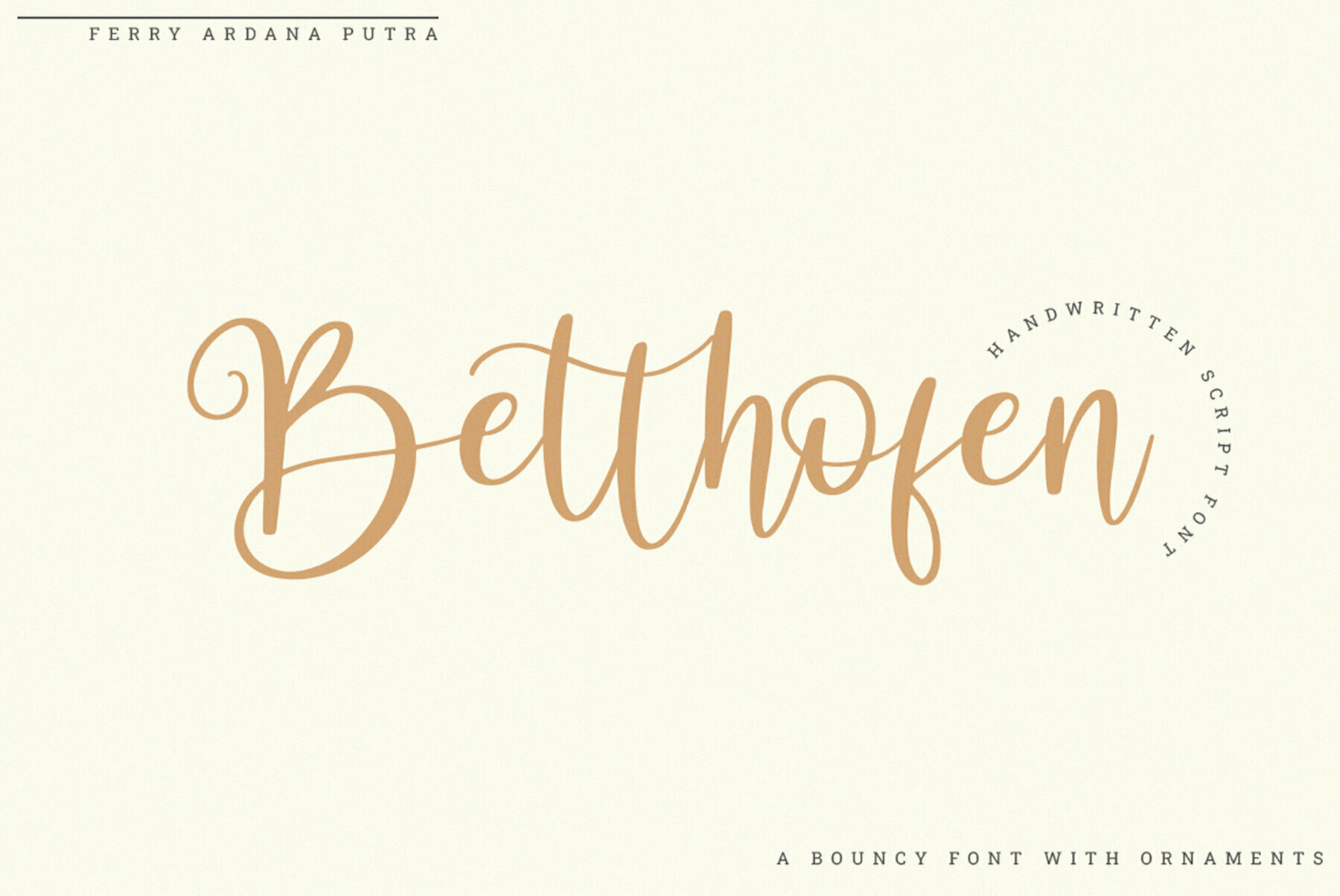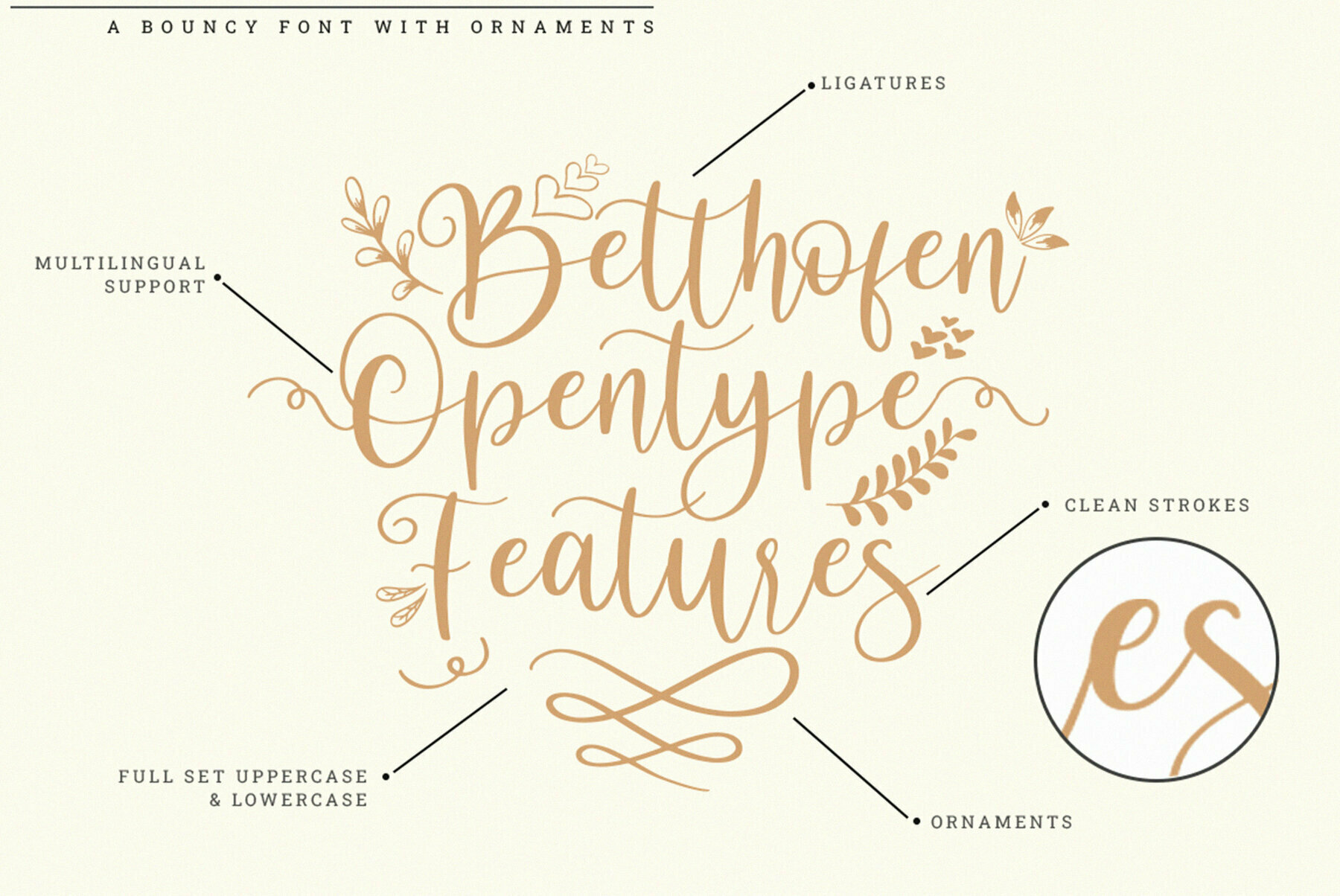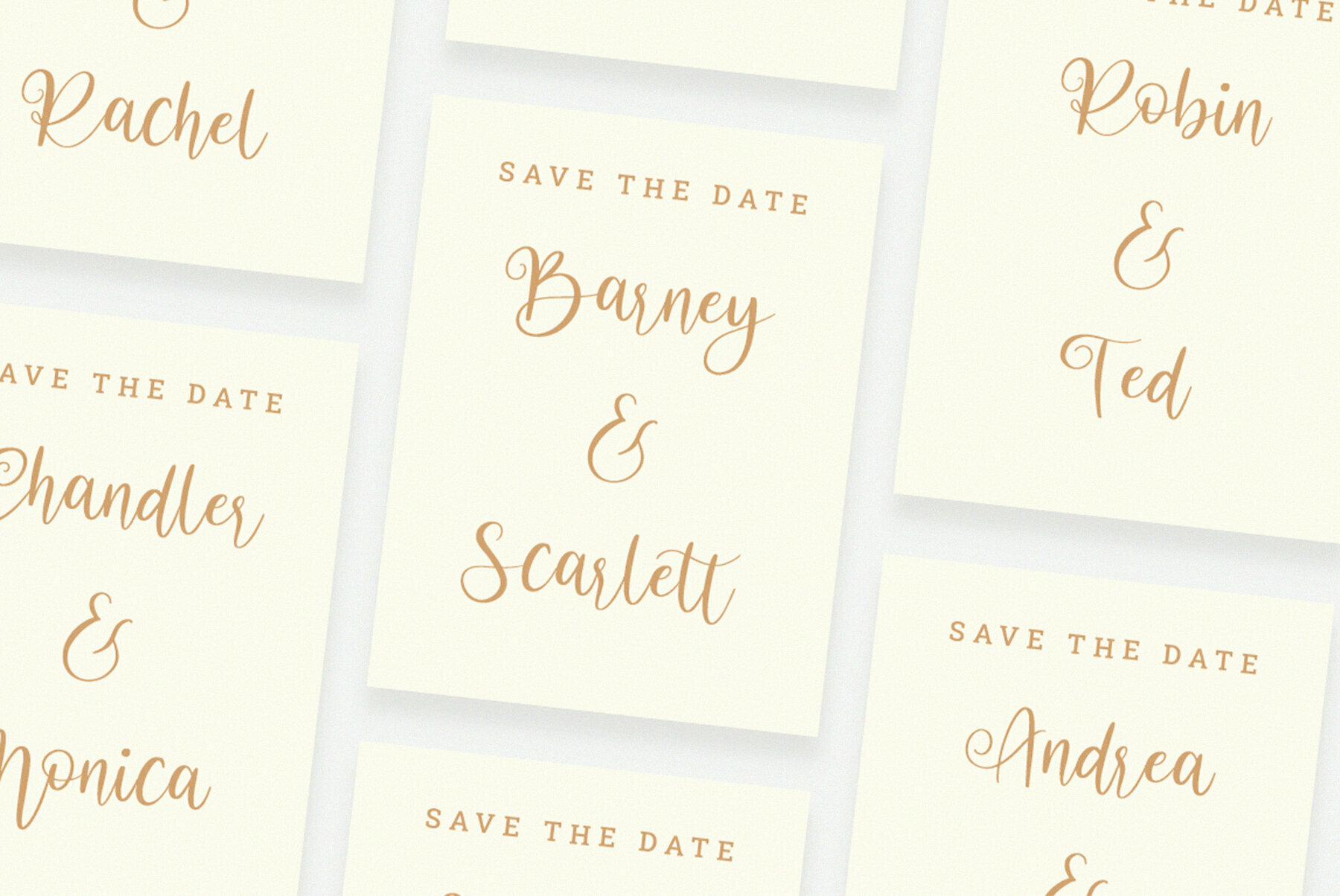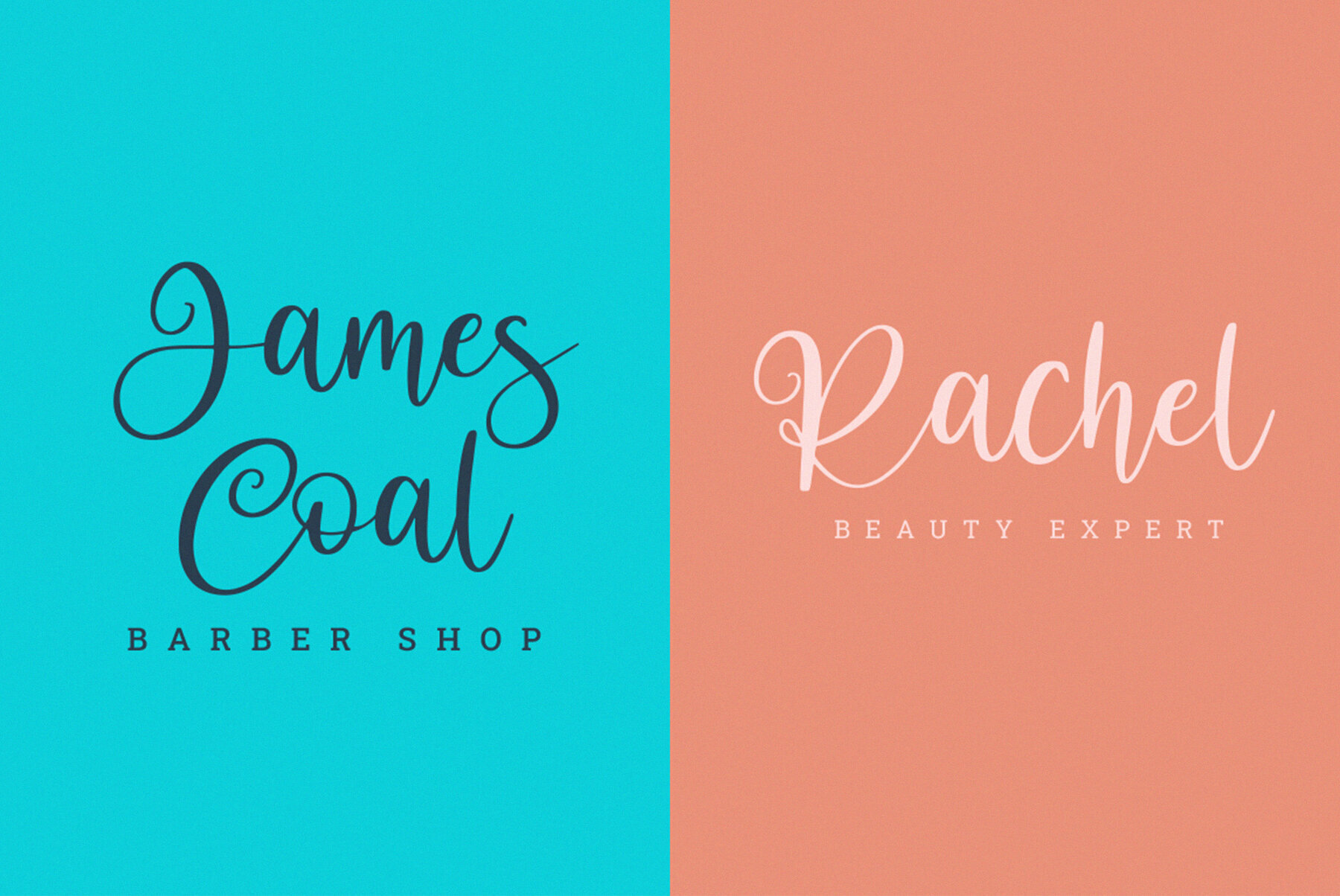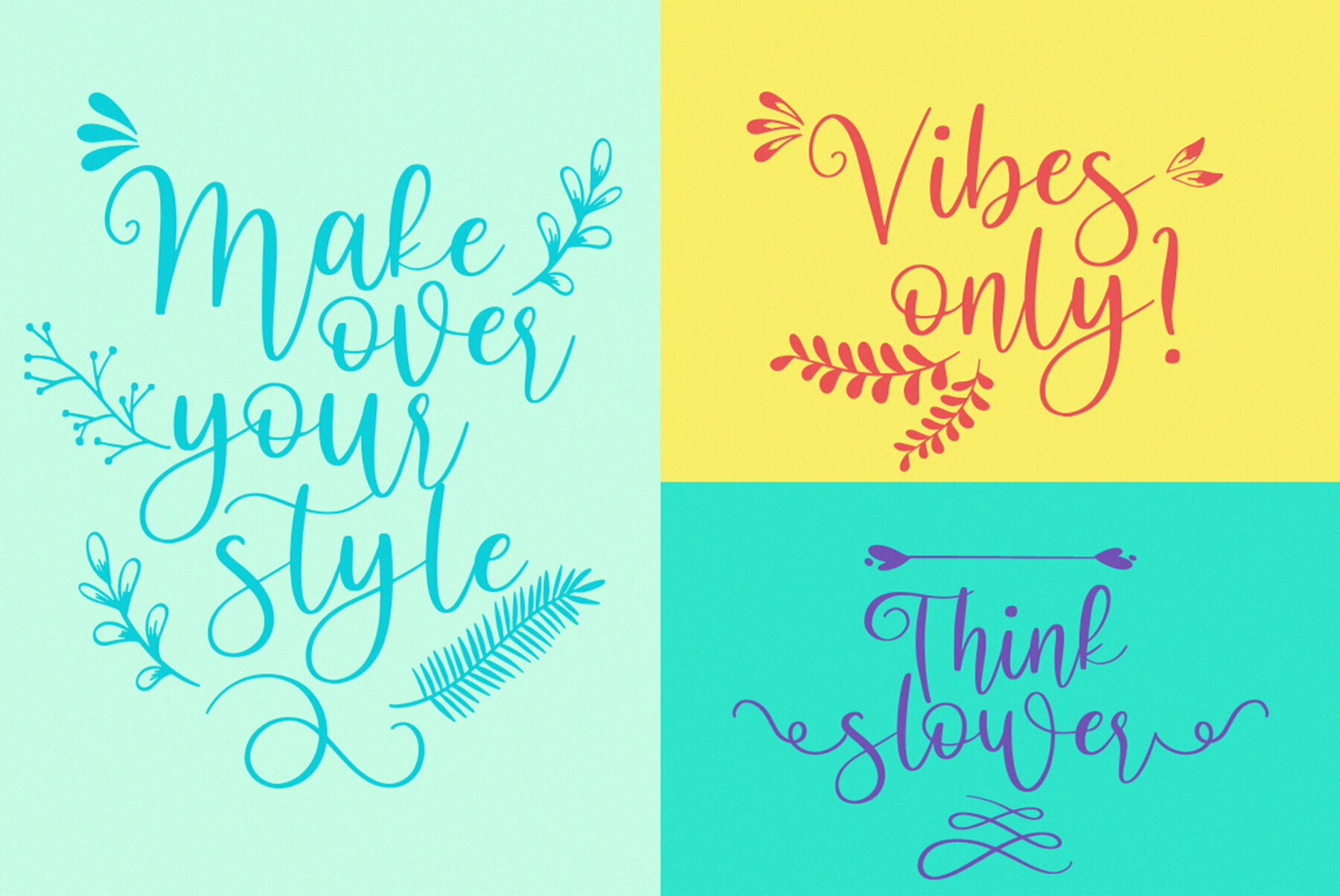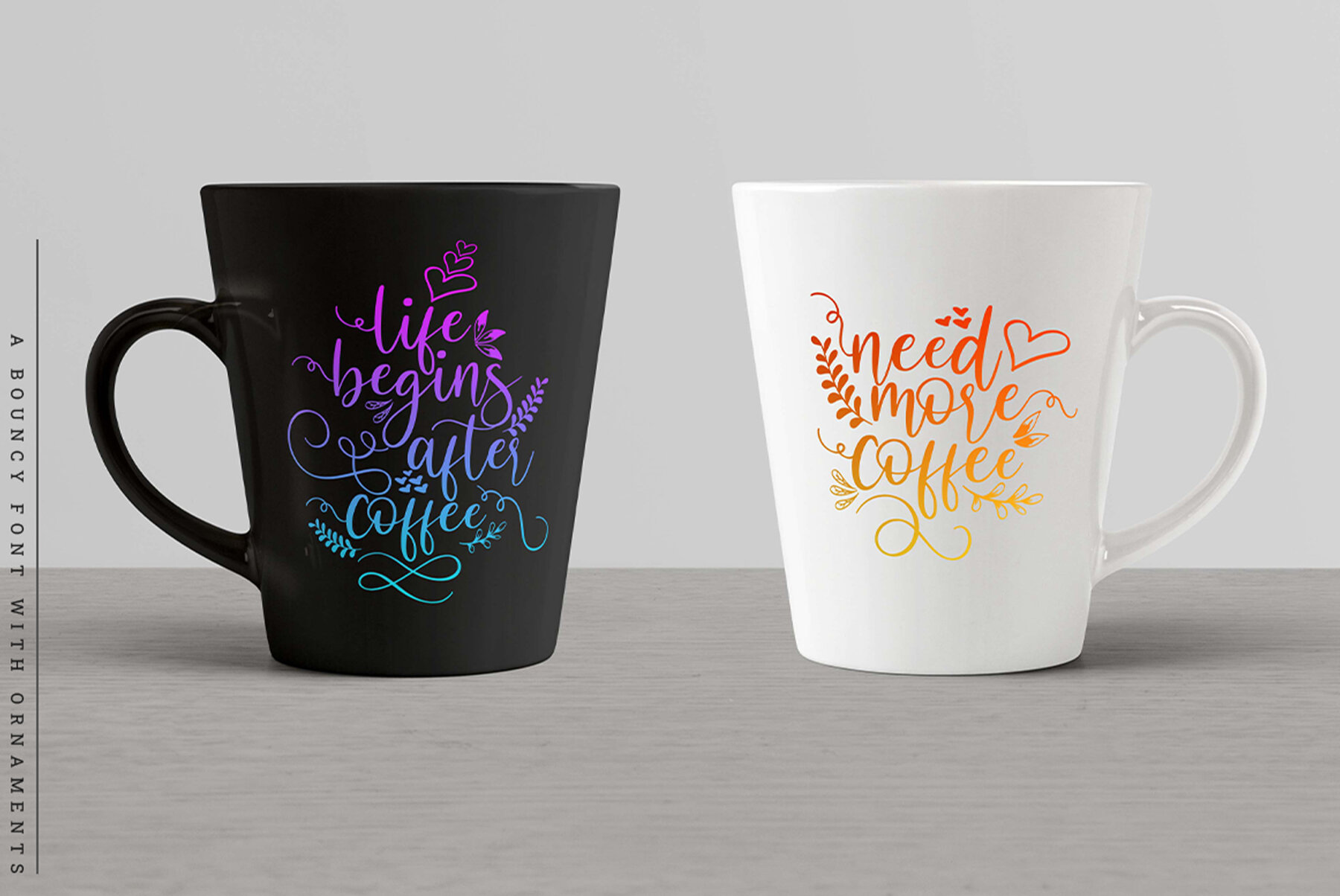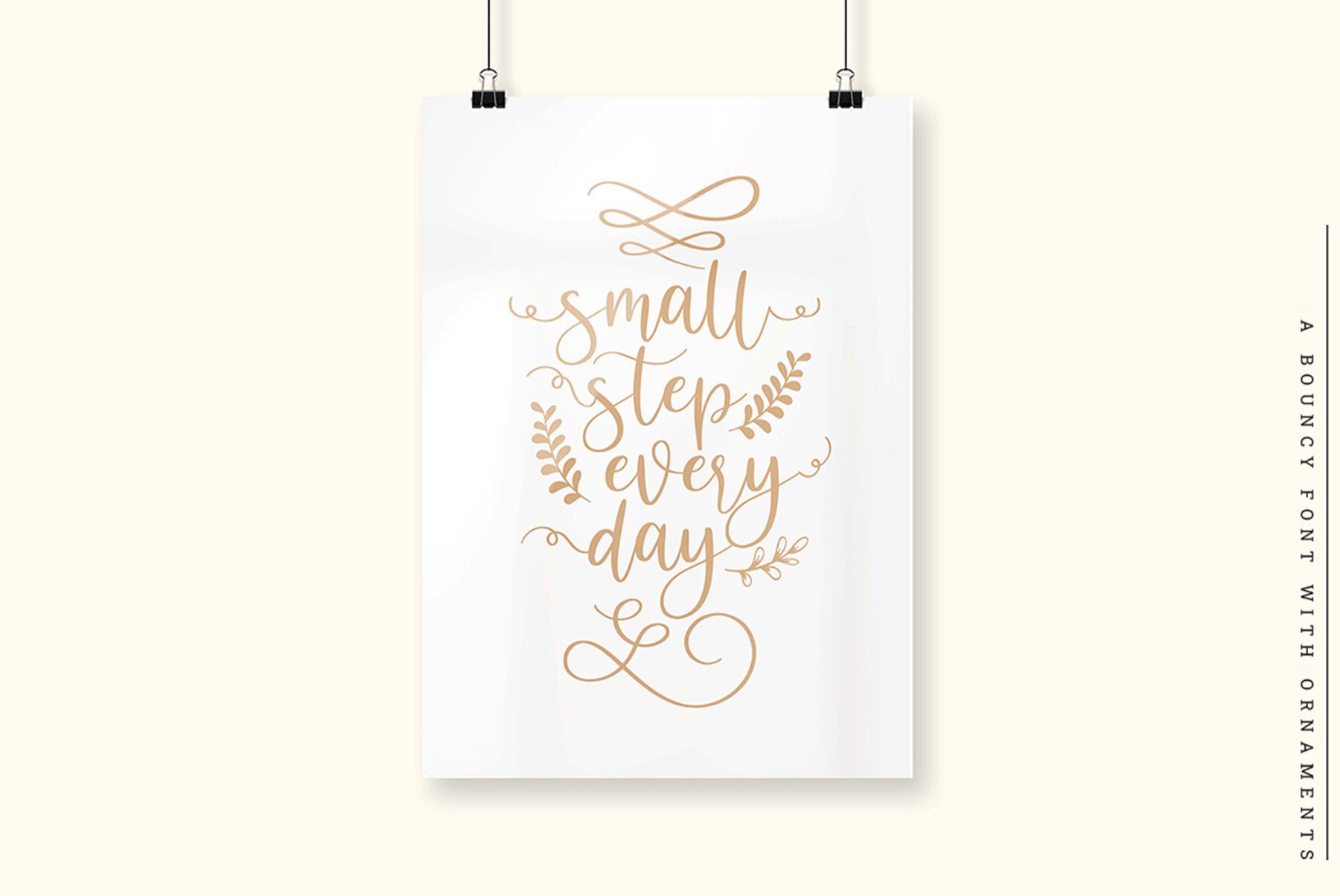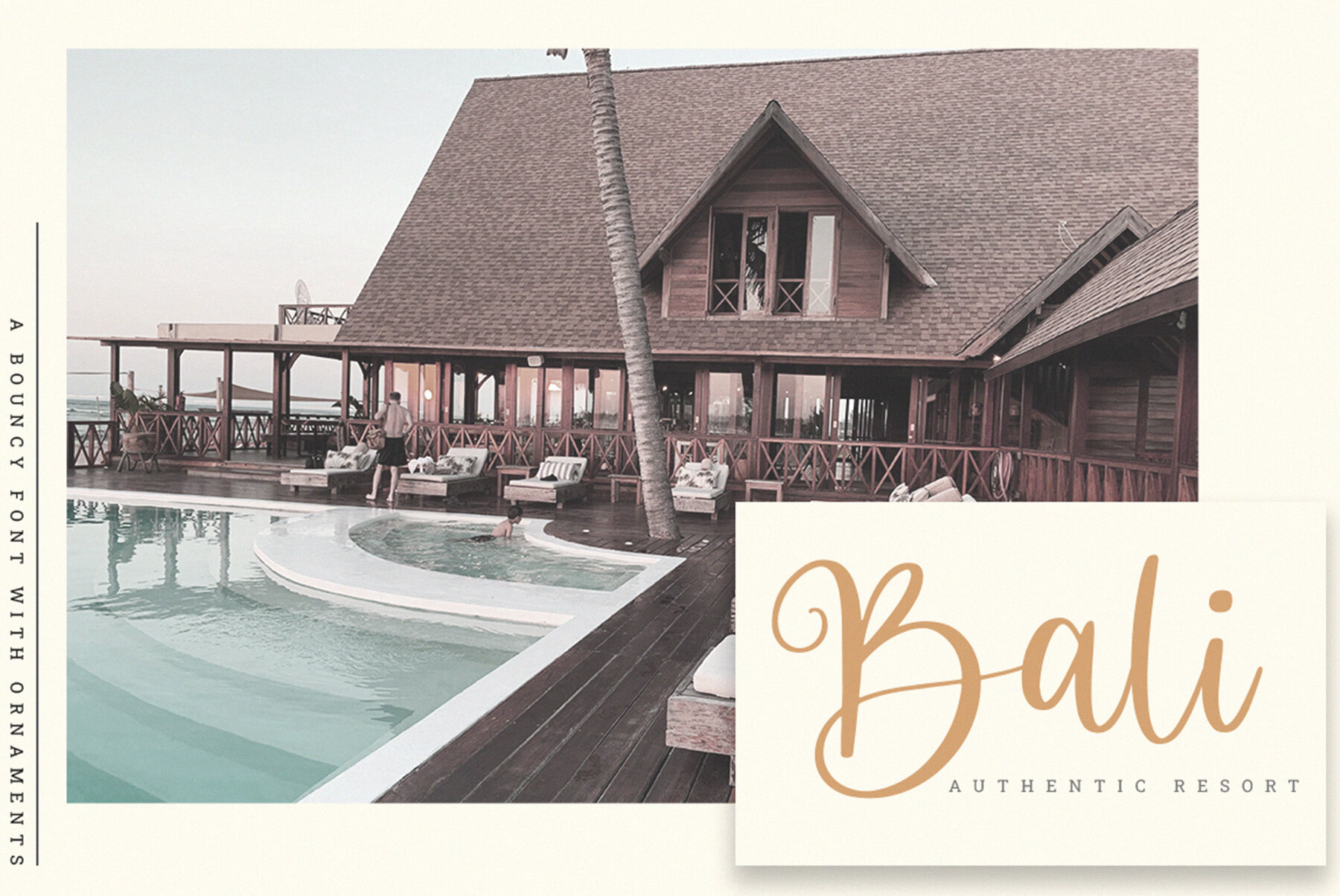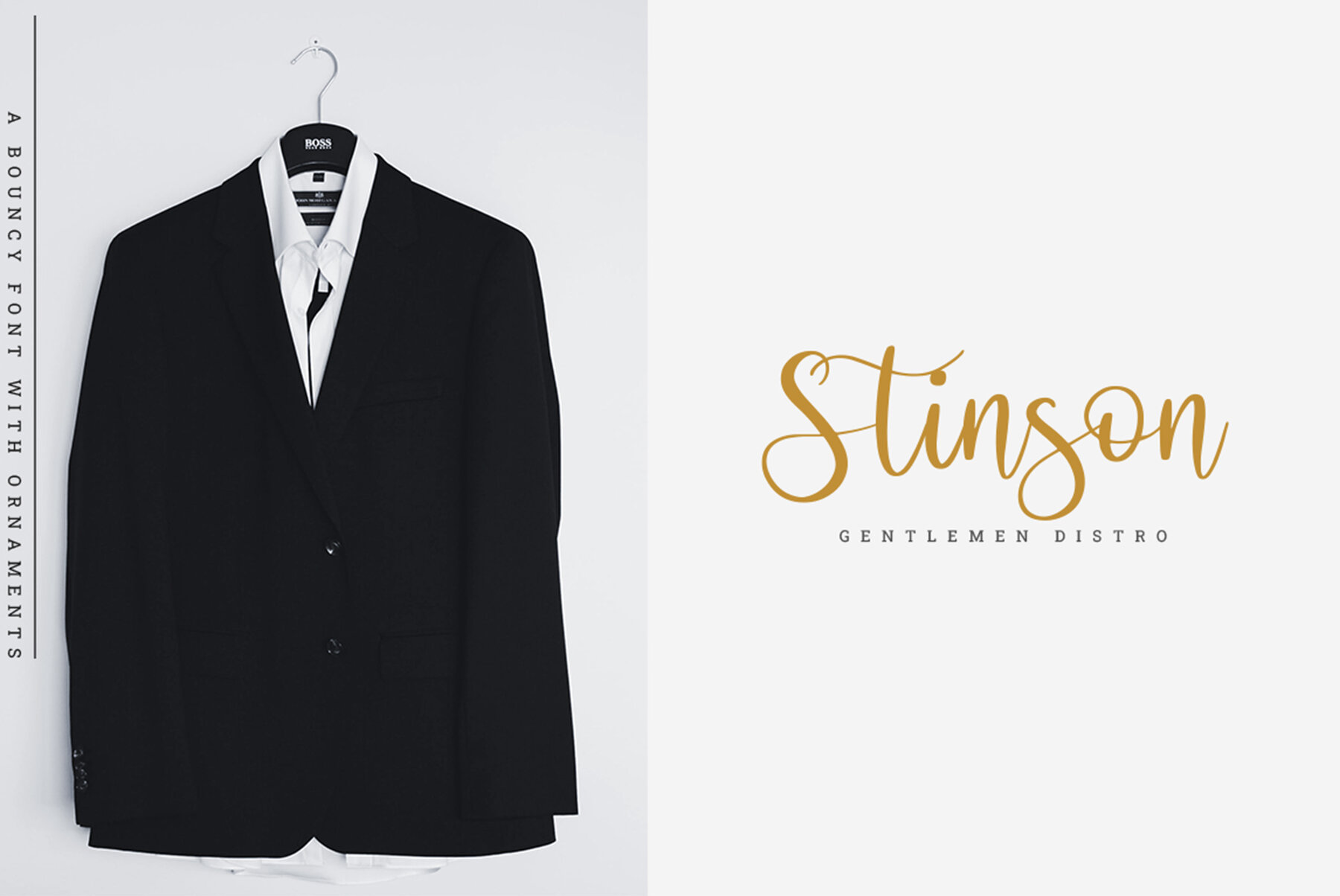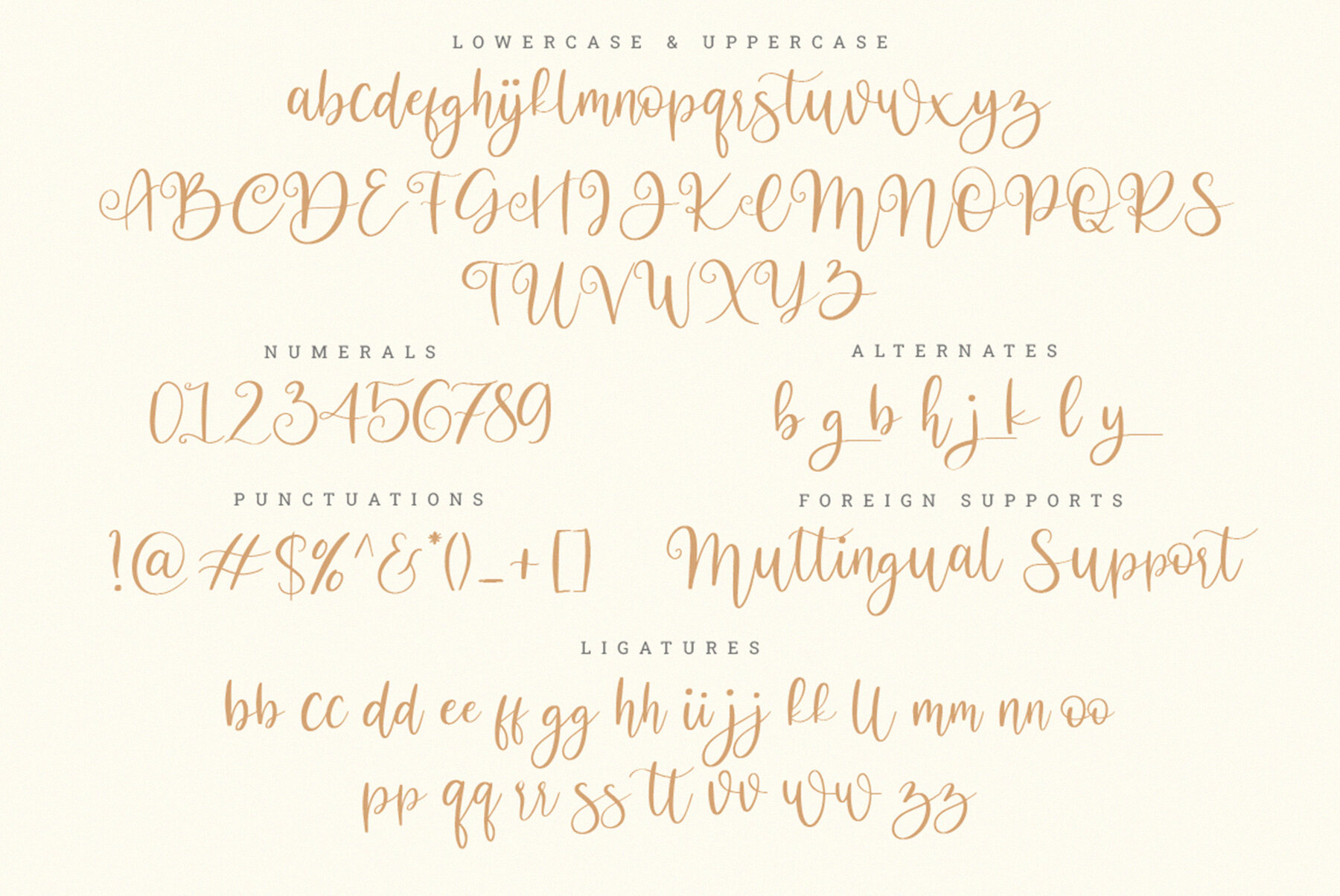
Betthofen Font
Betthofen Regular
Betthofen by Ardana Creative captures the spirit of lively handwriting with its bouncy script and versatile character set. Engineered with precision by Ferry Ardana Putra, this typeface offers robust OpenType features, including numerals, punctuation, ligatures, and multilingual support. Such dynamic qualities make Betthofen an ideal choice for diverse design projects, including branding, wedding designs, advertisements, and product packaging. To utilize OpenType stylistic alternates, ensure you are working with compatible programs such as Adobe Illustrator CS, Adobe InDesign, CorelDraw X6-X7, or Microsoft Word 2010 or later versions. You can also access additional swashes and alternates through utilities like Character Map (Windows), Nexus Font (Windows), Font Book (Mac), or Pop Char (Windows and Mac).Betthofen: A Lively Handwriting Script Font